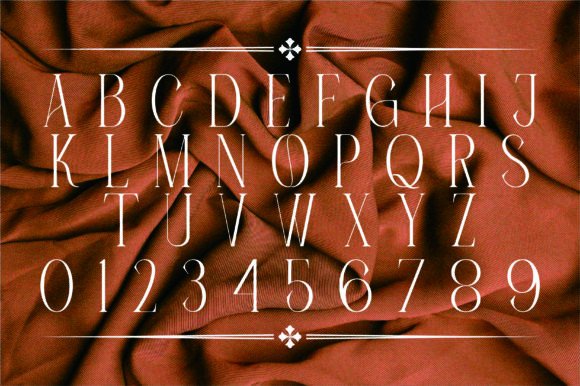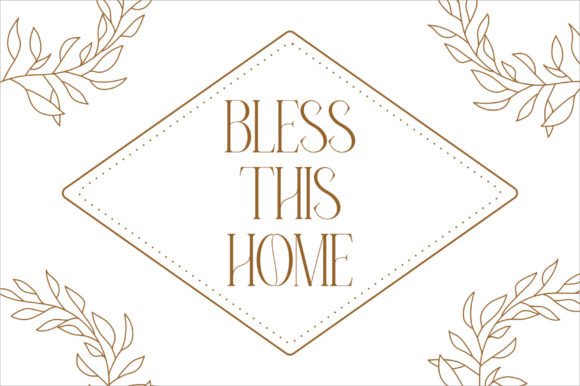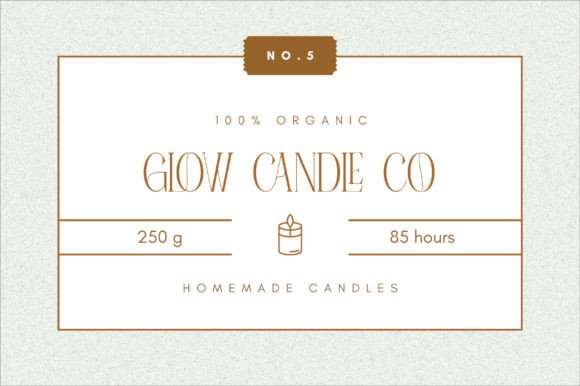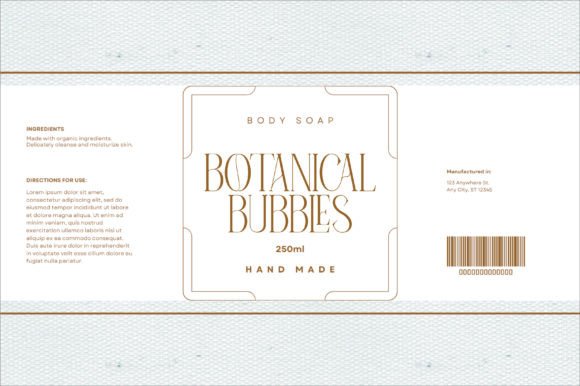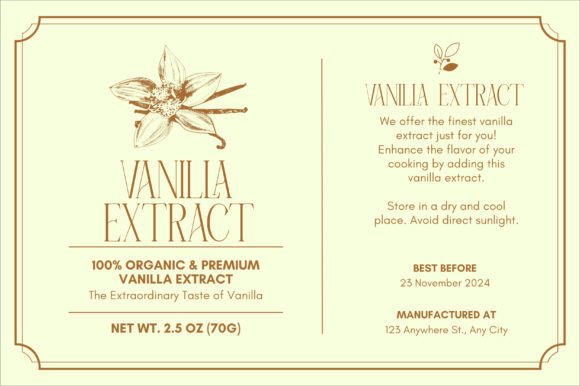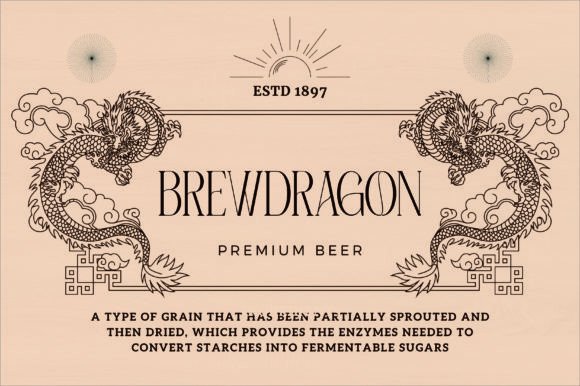
Introduction to Roman Cavalry Font
Roman Cavalry is a luxury serif font that combines traditional typographic elements with modern design sensibilities.
With its clean and minimalist aesthetic, this font is ideal for a wide range of design projects, including branding, advertising, and editorial design At the same time, Roman Cavalry is highly legible and easy to read, with clear letterforms and generous spacing.
Key Features of Roman Cavalry Font
Why Choose Roman Cavalry Font?